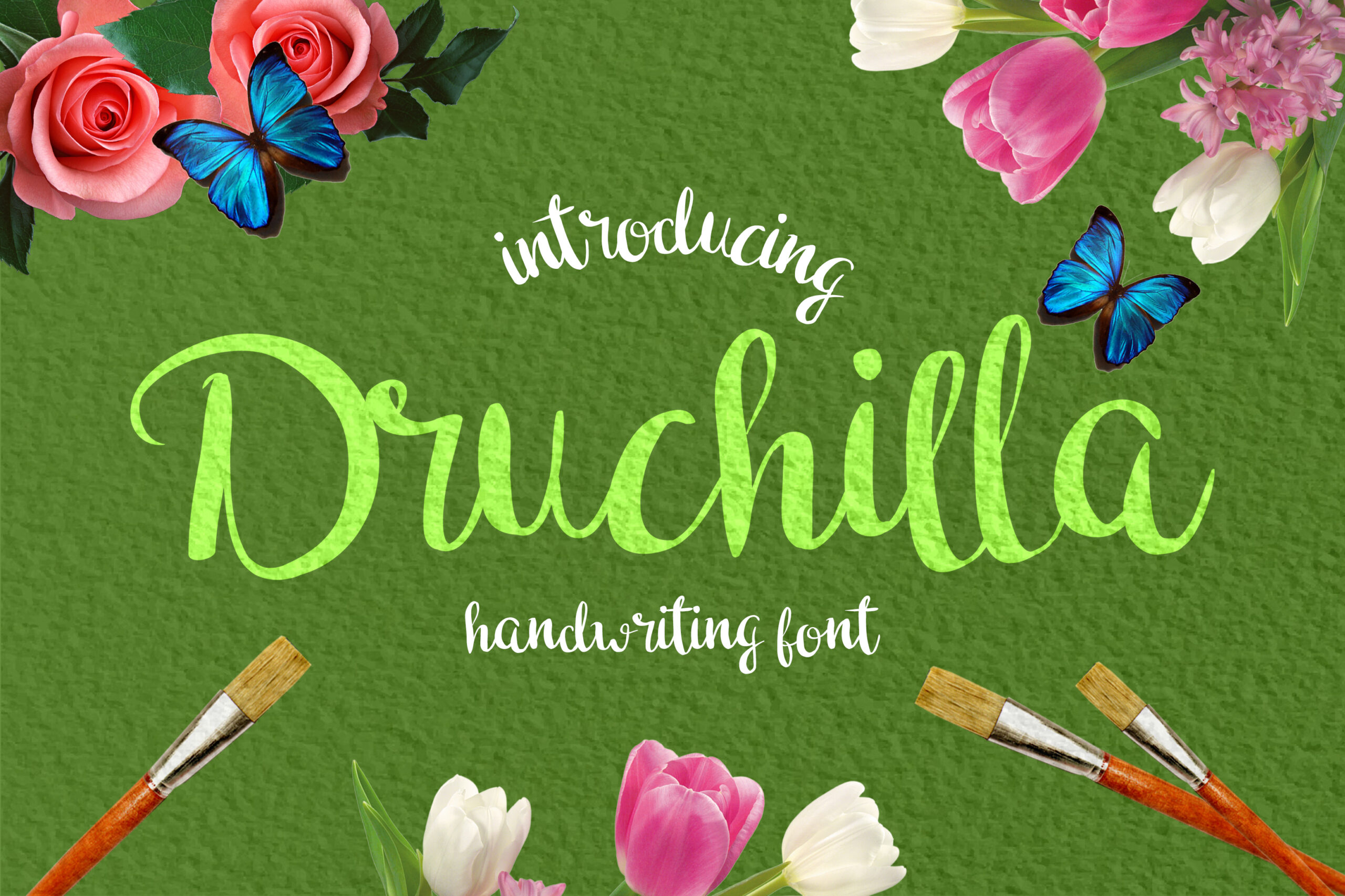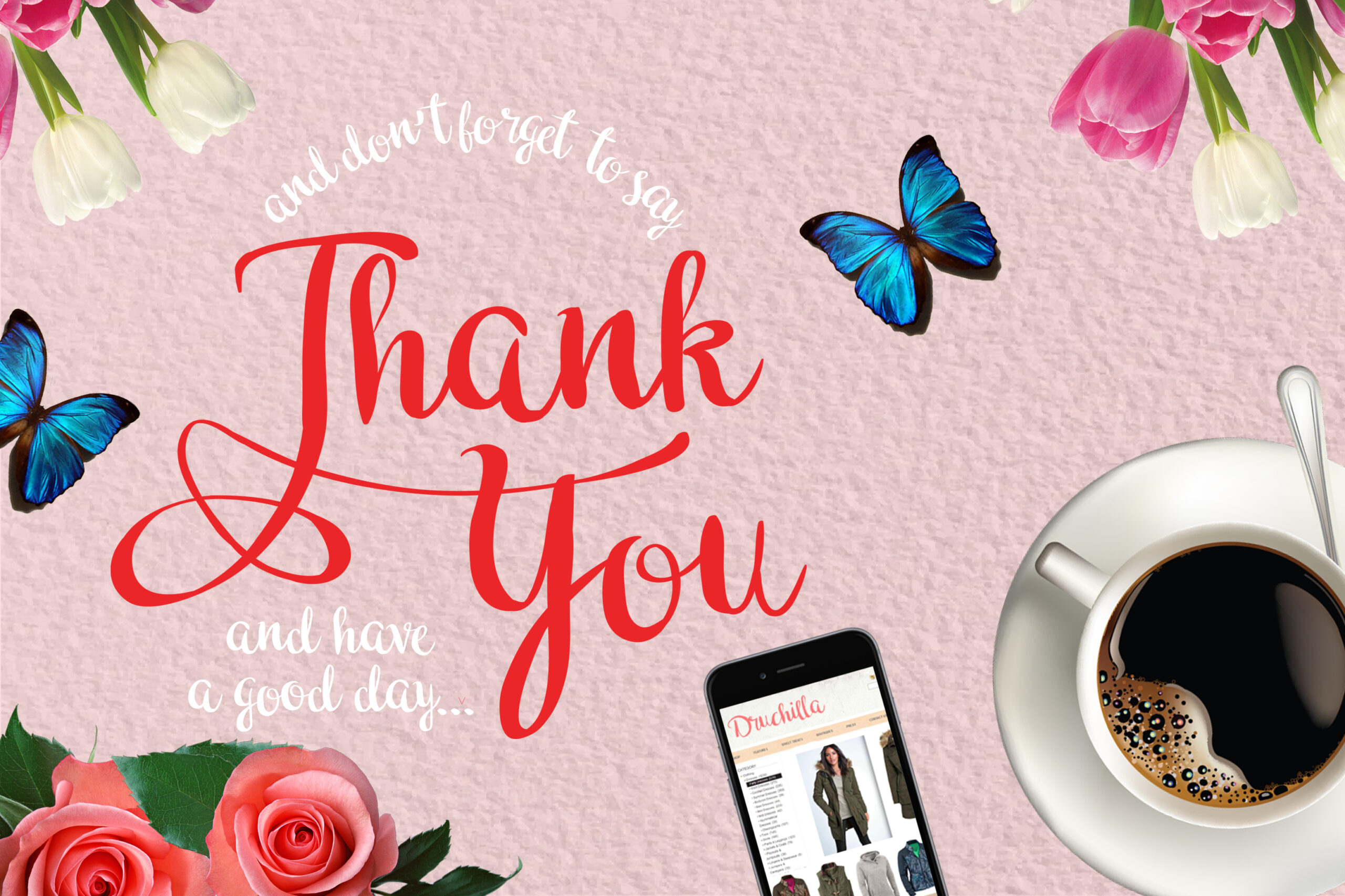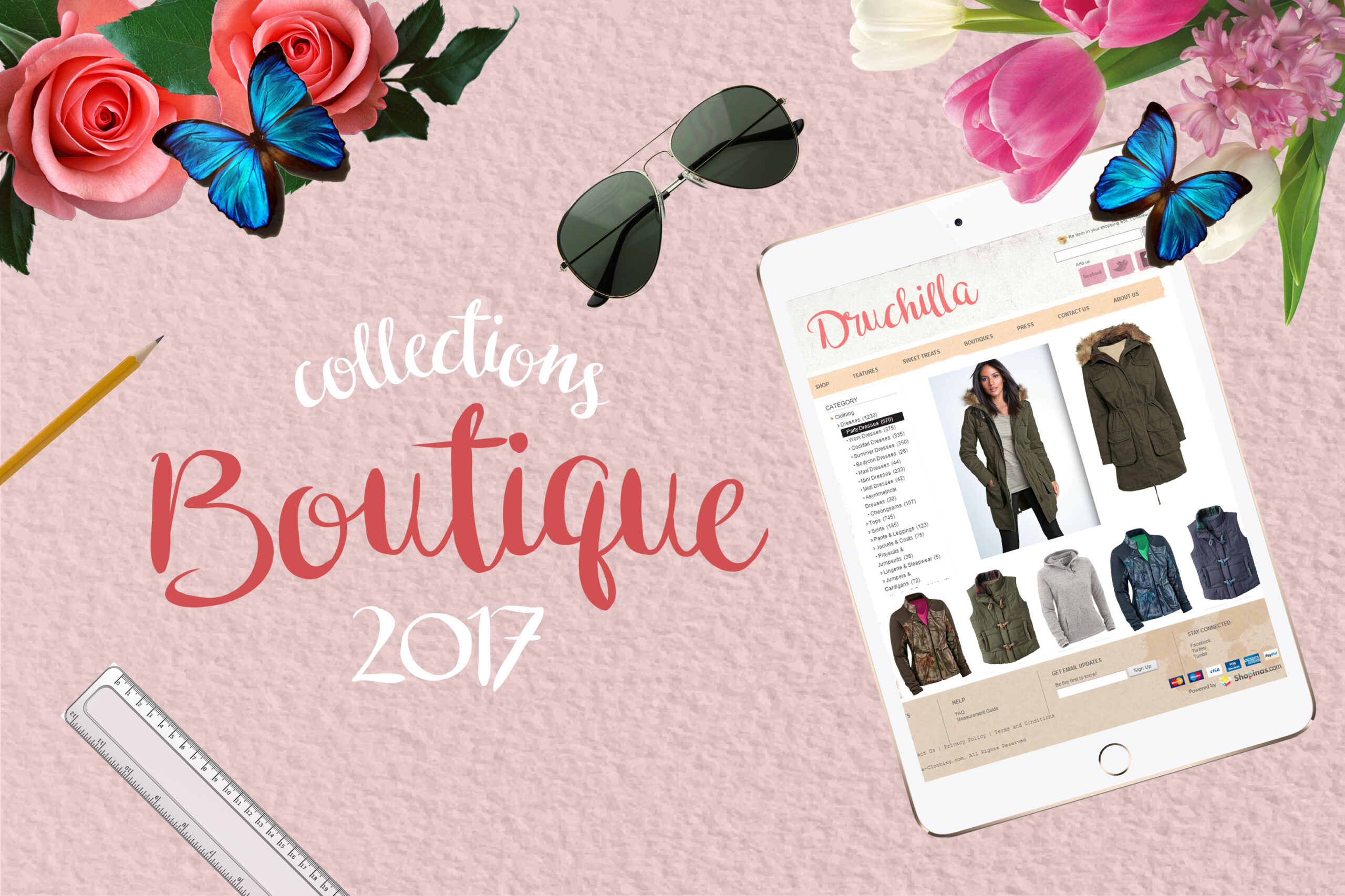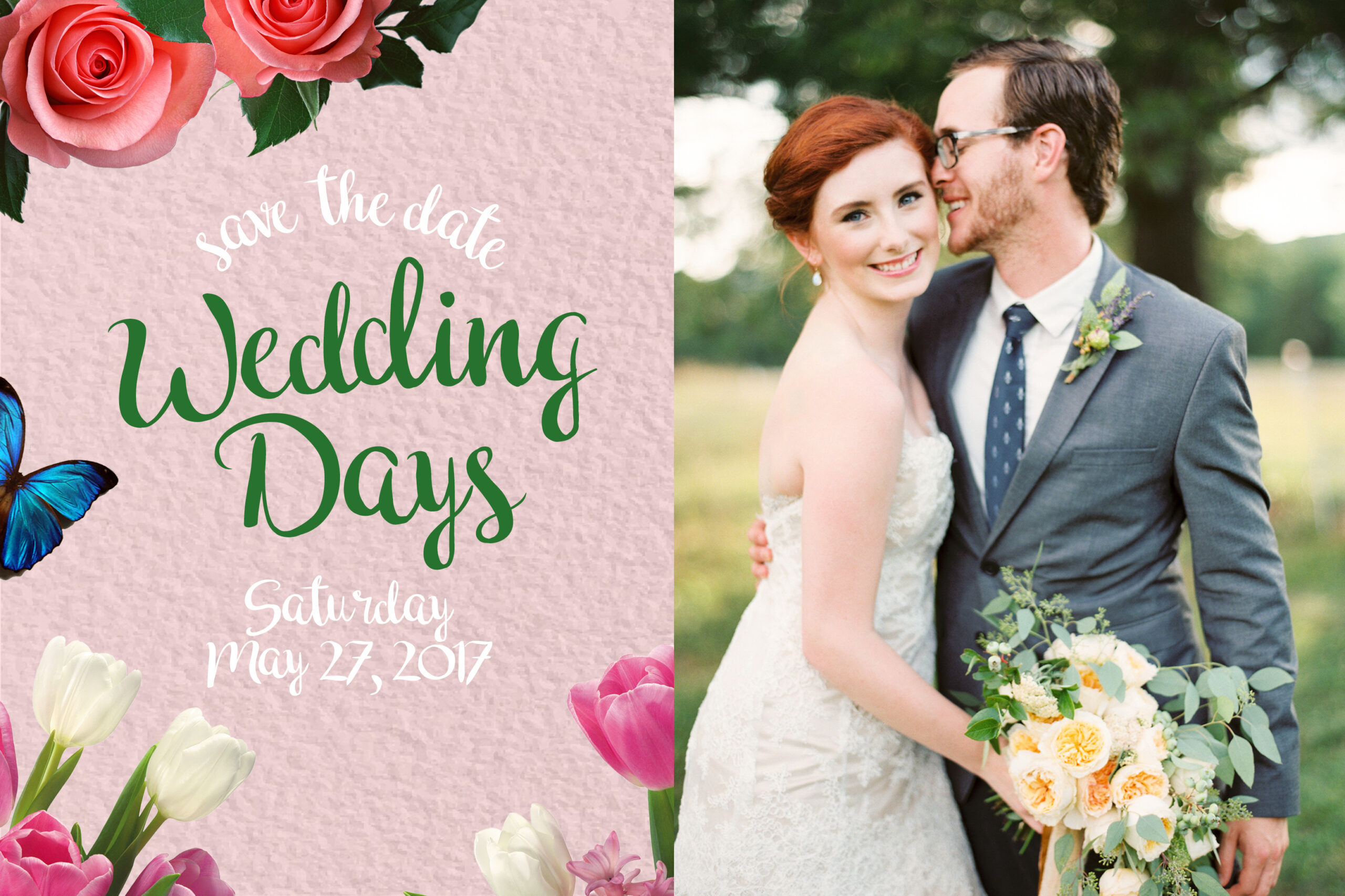
Druchilla Font
Druchilla is a stunning handwritten font that is packed with over 400 unique handmade glyphs.
This font has been created by madeDeduk and is perfect for any type of project that requires a personal touch.